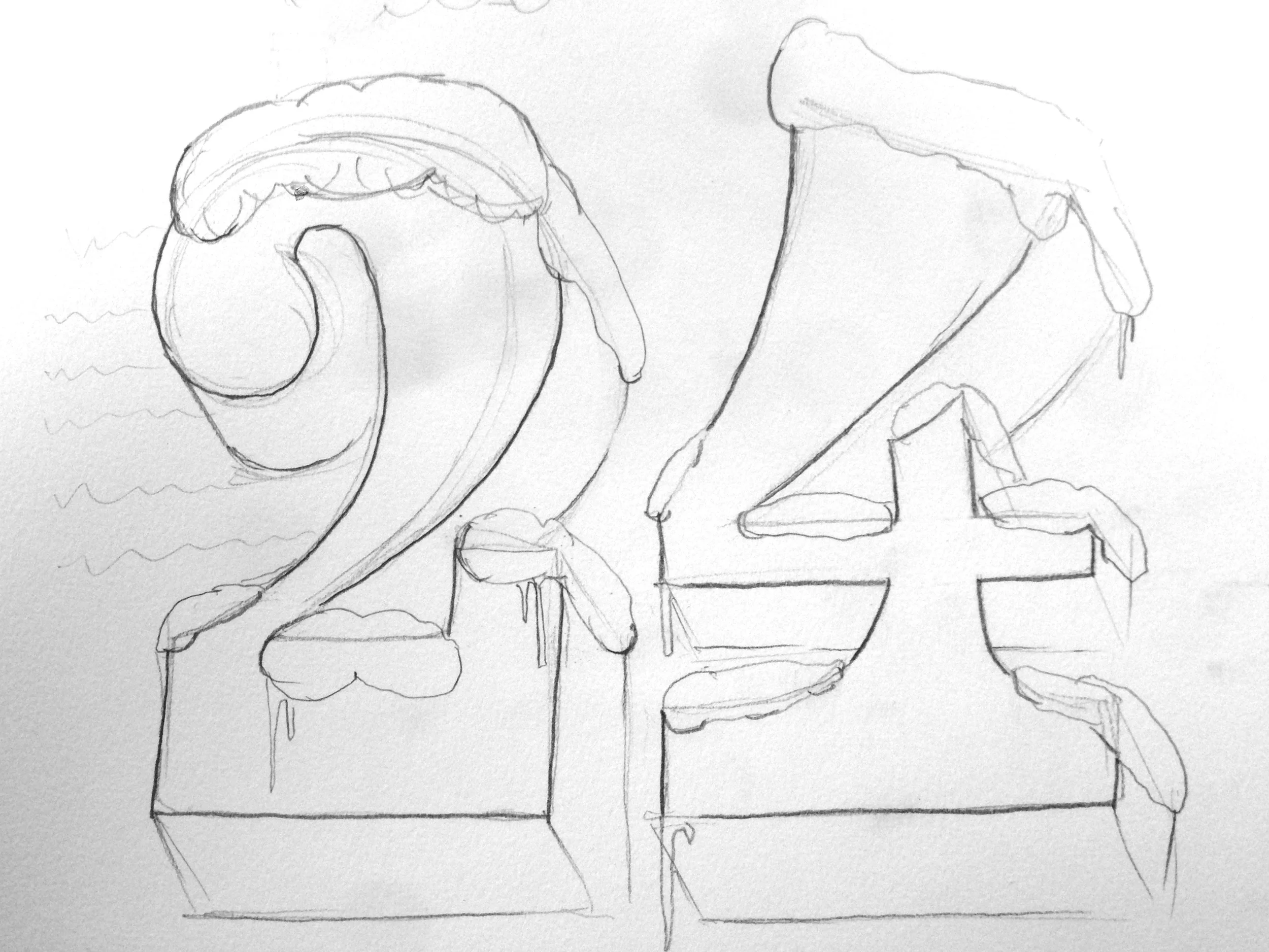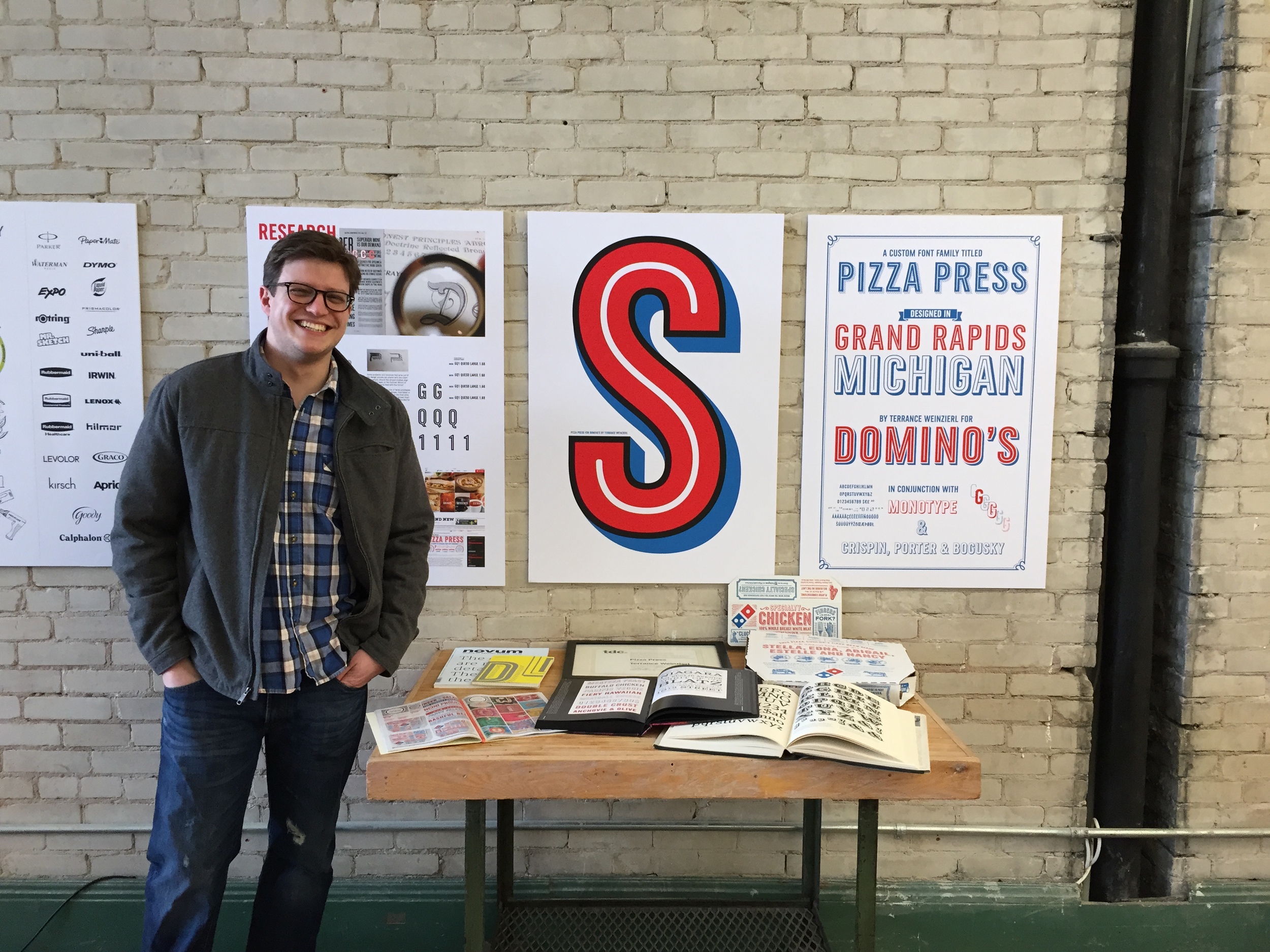
I contributed to the advent calendar put on by the Type Worship blog. I was honored to be included with so many great names. I ended up doing some cool icy caps for the 24th.
I spoke at the Game Developer's Conference about choosing typefaces for video games. I've also contributed to a curated list of typefaces for post-apocalyptic games published by Monotype.
The custom fonts that I designed for Domino's (with CP+B) were in a process exhibit in Grand Rapids during West Michigan Design Week.